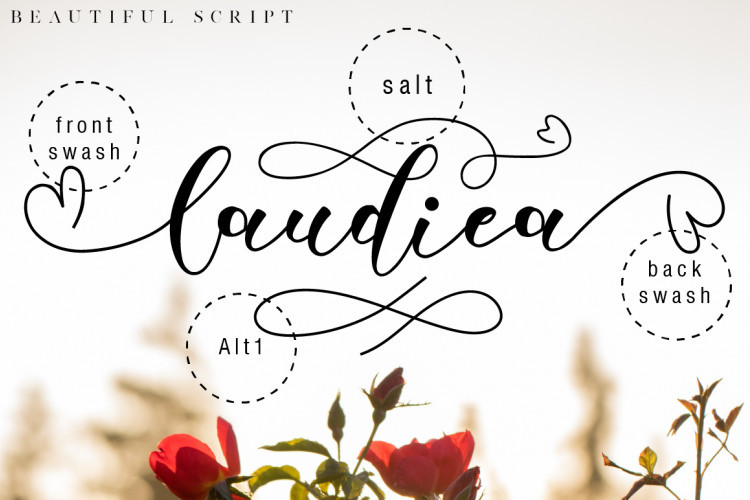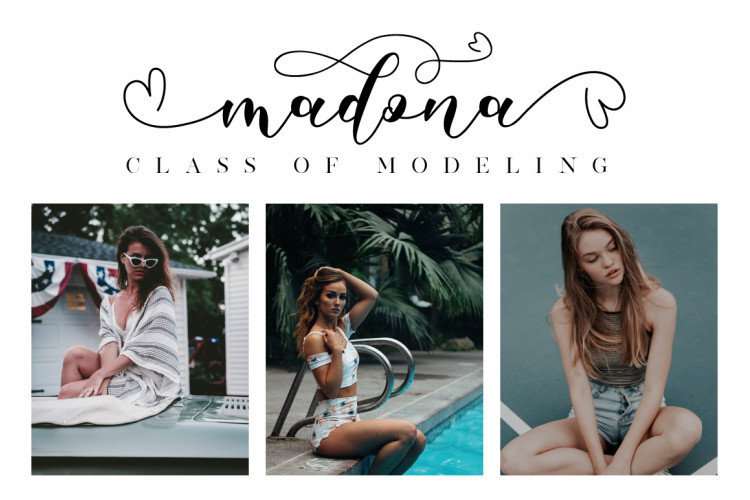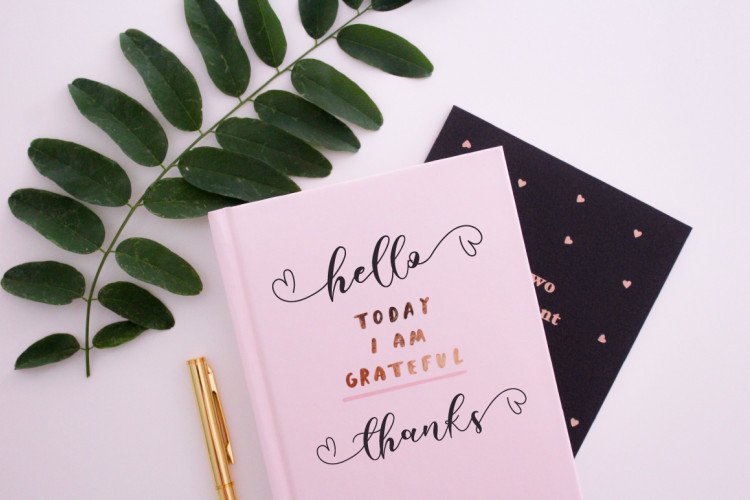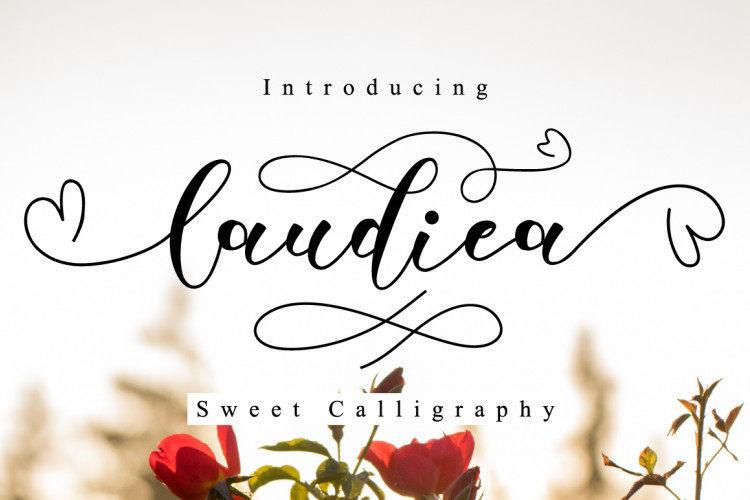
Laudiea Script Font
Hi Font Lover! This is a modern calligraphy font with the current handwriting style. It has features that makes the font look more natural and easy to use. Introducing Laudiea Font. It’s designed and shared by NissaStudio. Laudiea Script Font is a beautiful script font with a classy, elegant, and modern look. It will add a handwritten touch to any design project! Laudiea is perfect for branding projects, logo, wedding designs, social media posts, advertisements, product packaging, product designs, label, photography, watermark, invitation, stationery and any projects that need handwriting taste.